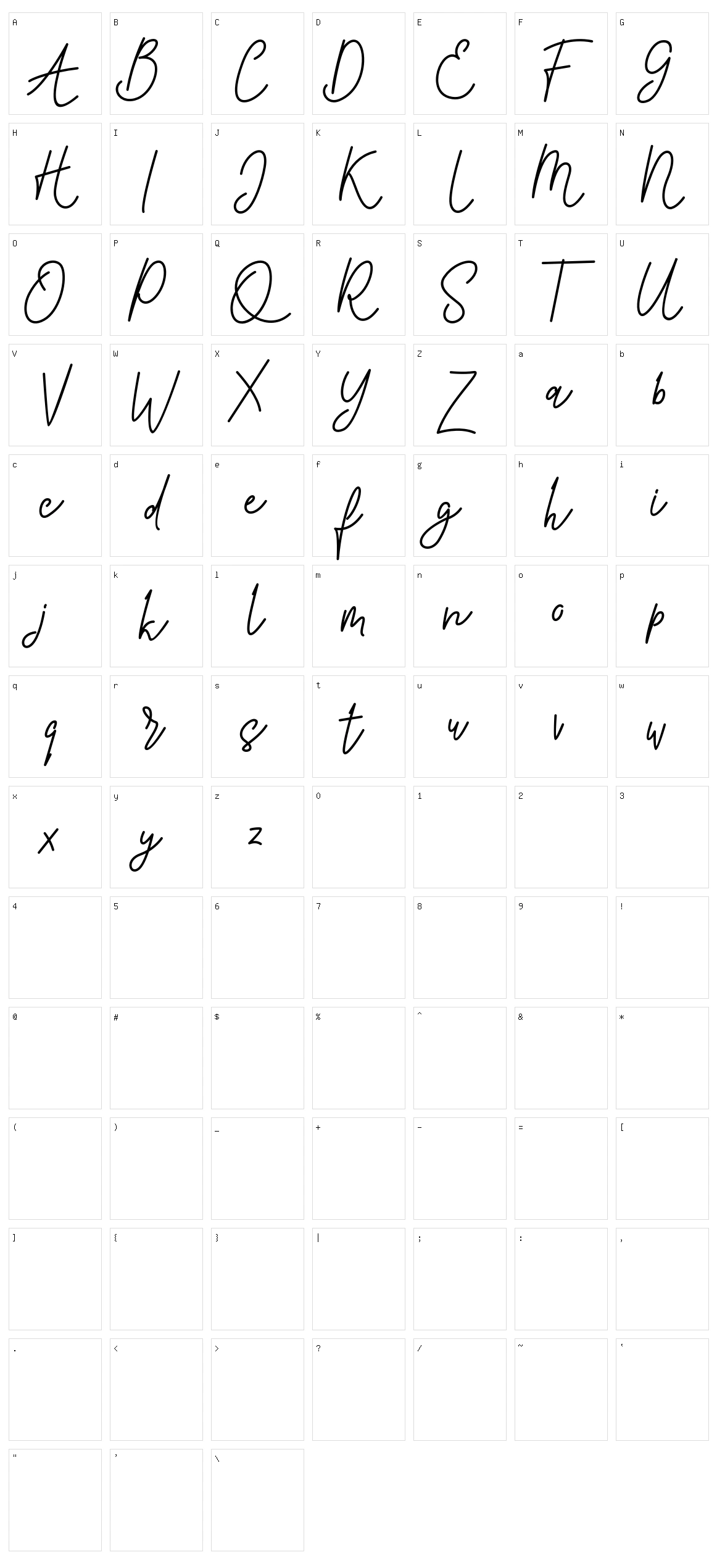
The free font Pure Tintri is carefully designed by InspiraType, showcasing a thoughtful balance of creativity and usability and falls under the Script font style. When you download the ZIP file, it contains only 24.89 KB of font files, making it lightweight and quick to download. Please review the license details below to understand permitted usage and distribution rights. If license information is not available, we recommend using this font for personal projects only or contacting the author directly for commercial usage permissions.